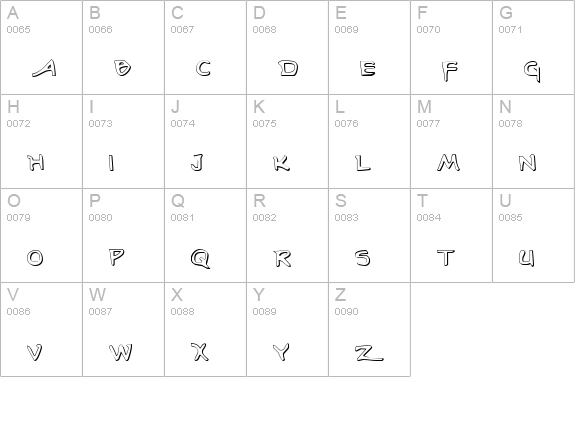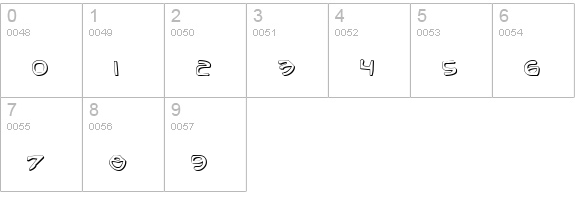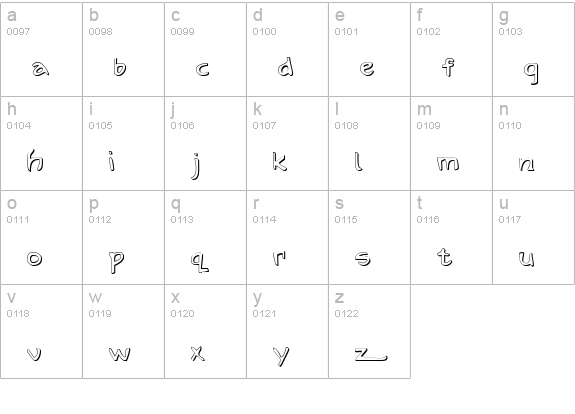
Arilon Shadow font is a stunning display typeface that exudes a sense of mystery and intrigue. With its bold and sharp edges, this font is perfect for adding a touch of sophistication to your designs. The shadow effect adds depth and dimension, making your text stand out in a captivating way. What makes Arilon Shadow font even more appealing is the fact that it is available for free download at FontsMarket.com. This means you can easily access this unique font and use it in your projects without any cost. Whether you're working on a poster, logo, or any other creative endeavor, Arilon Shadow font will surely make a bold statement and leave a lasting impression on your audience. Elevate your designs with this exceptional font today!